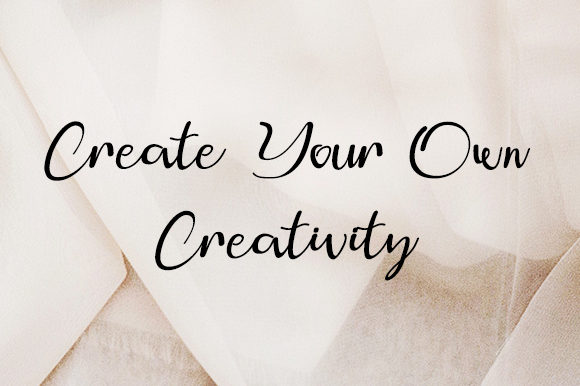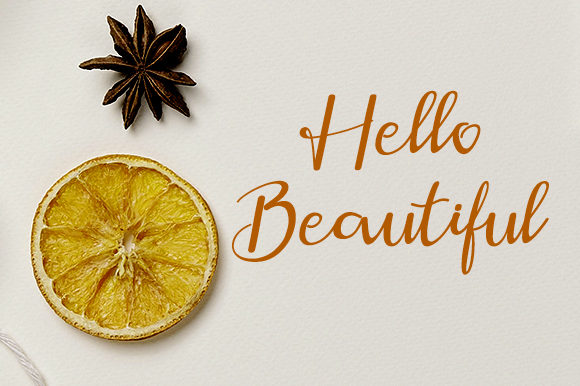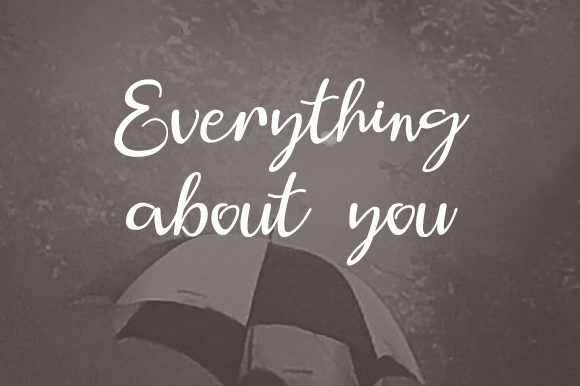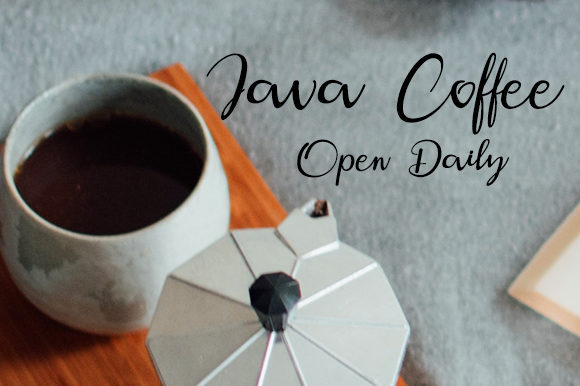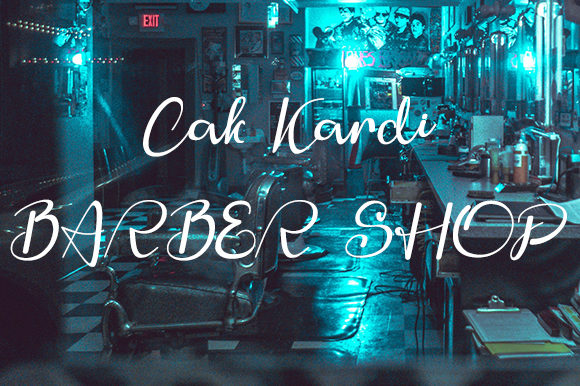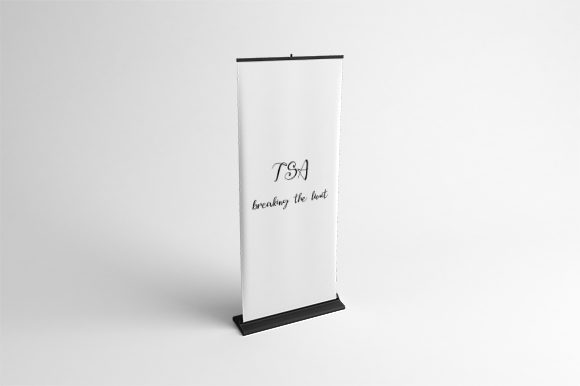
Introduction to Mangkaning Font
Have you ever been working on a creative project, pouring your heart and soul into every detail, only to realize that the perfect font is just out of reach? That’s where the Mangkaning Font comes in – a stunning, elegant handwritten font that’s sure to elevate your design to the next level. Whether you’re designing invitations, product packaging, or logos, this beautiful font is the perfect addition to your design arsenal.
As a designer, you know how much a well-chosen font can make or break a project. That’s why we’re excited to introduce the Mangkaning Font, a high-quality, PUA-encoded font that’s perfect for any creative endeavor. With its transparent background and wide range of glyphs and swashes, this font is a game-changer for designers looking for a free download that’s both stylish and versatile.
Key Features of Mangkaning Font
- Unique, hand-drawn design with a creative touch, perfect for artistic projects
- Perfect for designers, artists, and creatives working on projects that require a unique, high-quality font
Honest Review: Mangkaning Font
I recently had the chance to work with the Mangkaning Font for a creative project and I must say it’s been an interesting experience. Overall, I think it’s a great addition to any designer’s library, especially for those looking for a unique and high-quality font.
- Unique and creative design that adds a touch of personality to any project
- High-quality graphics that are crisp and clear even at large font sizes
- Some users may find the font too playful or unconventional for certain projects
- Limited language support, which may be a concern for designers working on projects that require multiple languages
Overall, I think the Mangkaning Font is a great design resource that can add a lot of creativity and flair to a project. While it may not be the best fit for every design, it’s definitely worth checking out for designers looking for something unique and high-quality.
Mangkaning Font
Tips for Getting the Most Out of Mangkaning Font
To get the most out of Mangkaning Font, try combining it with other design elements such as images and graphics. You can also experiment with different font sizes and colors to create a unique and eye-catching design.
Mangkaning Font is perfect for creative projects such as logo design, infographics, and social media graphics. Its unique design and high-quality text make it an ideal choice for any design project that requires a professional and visually appealing look.